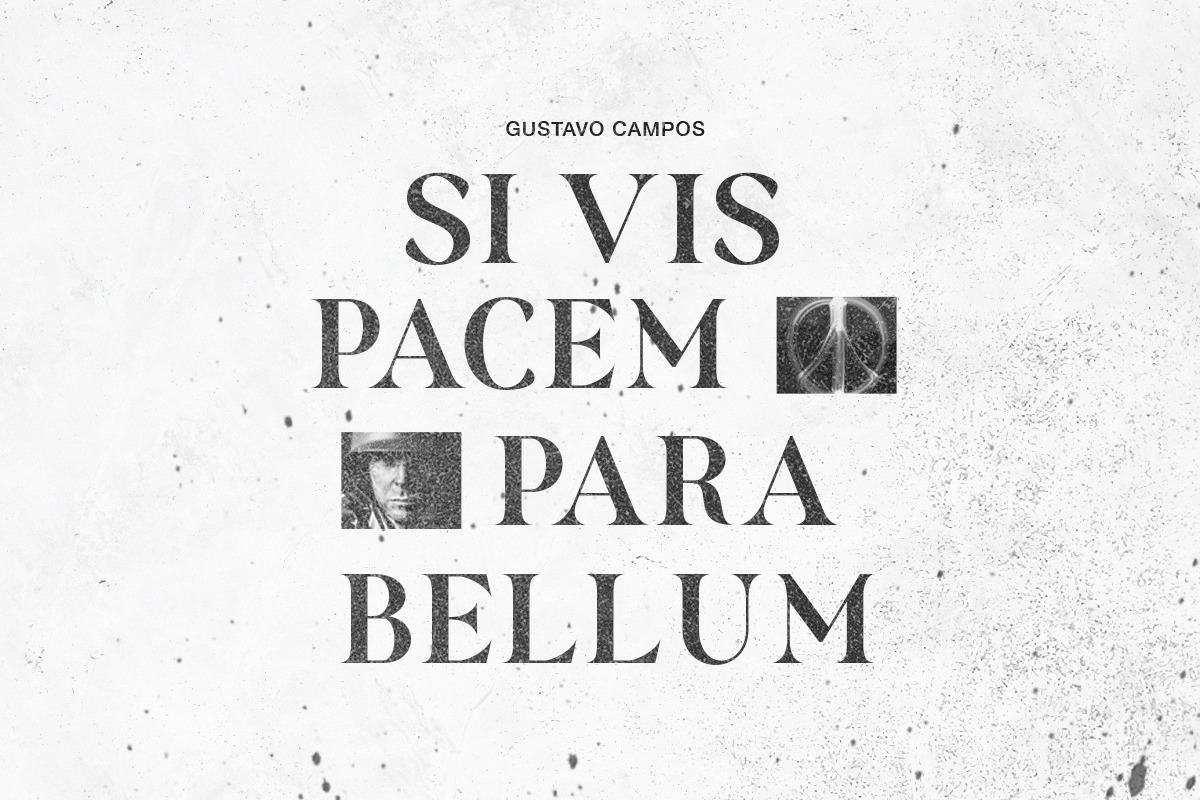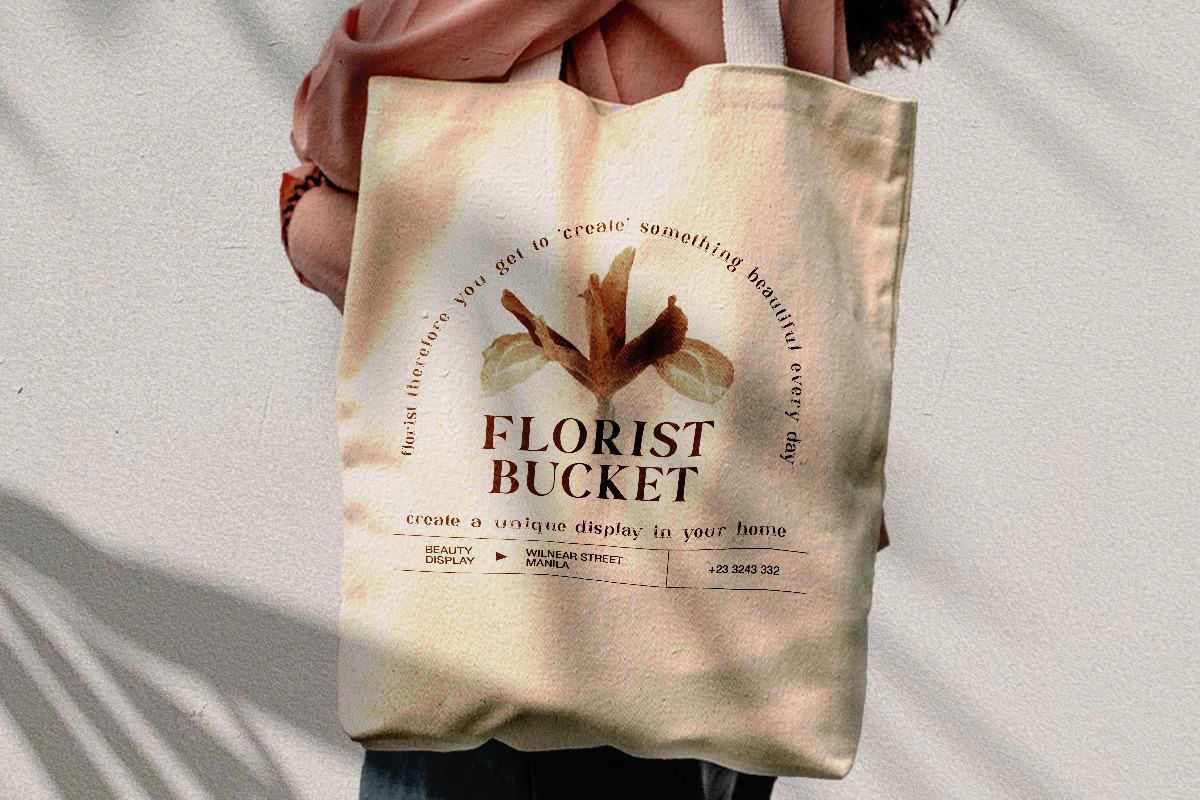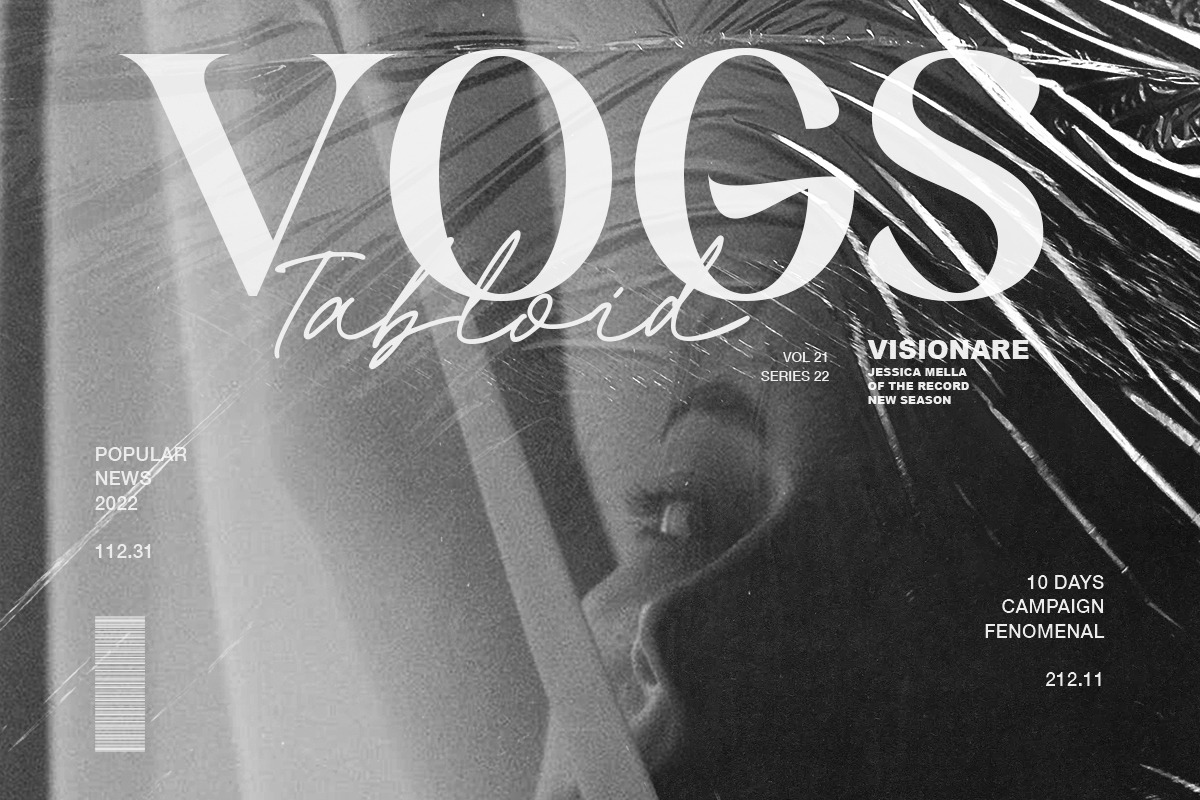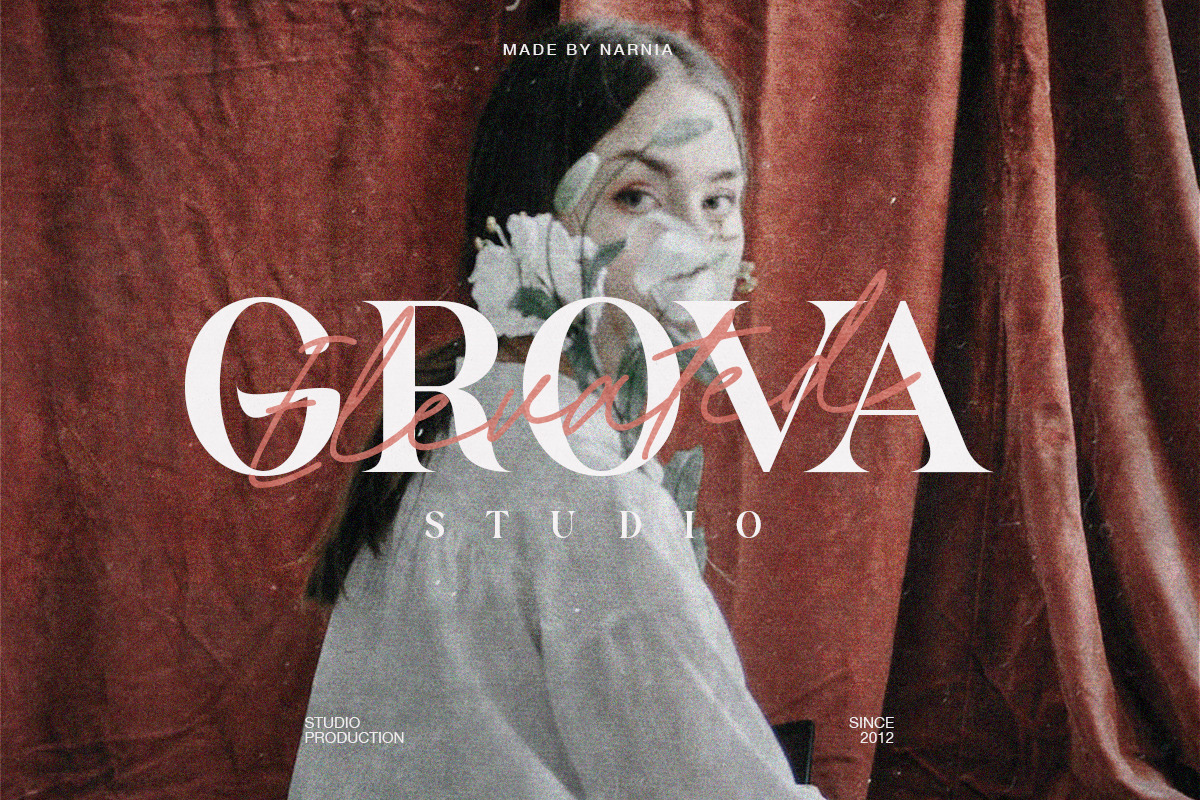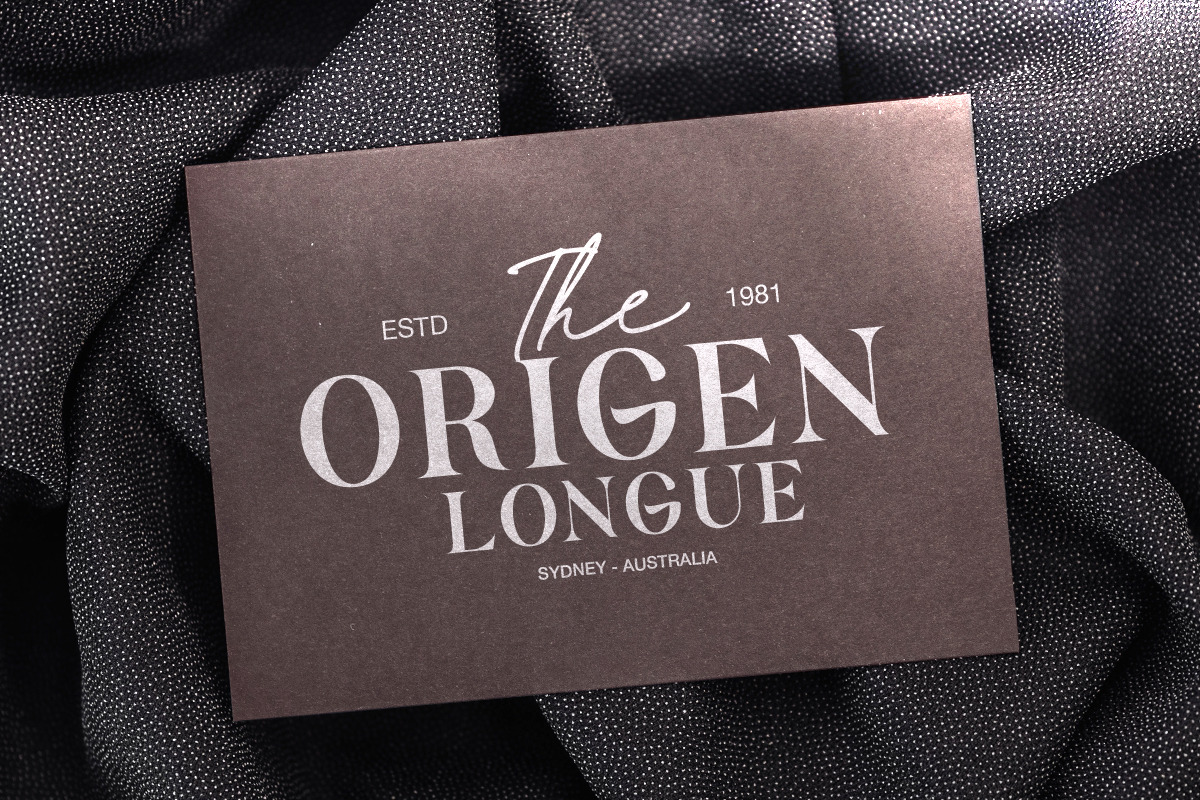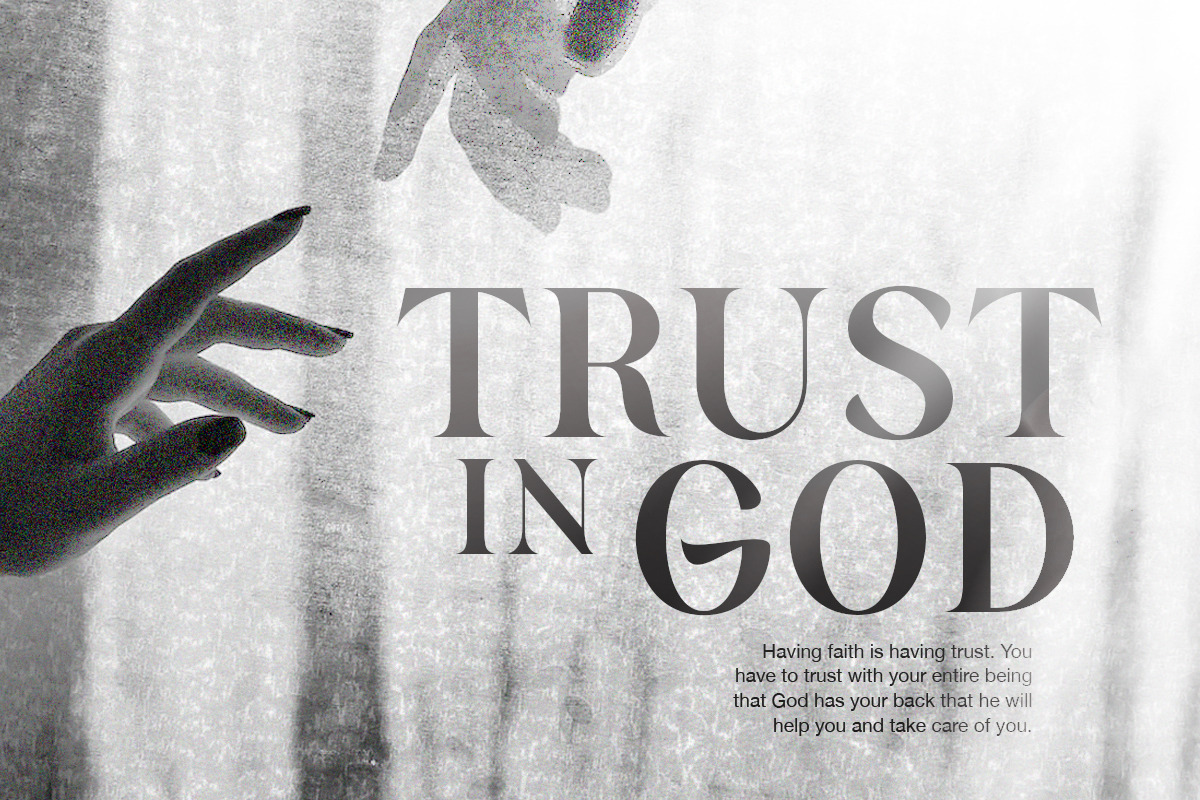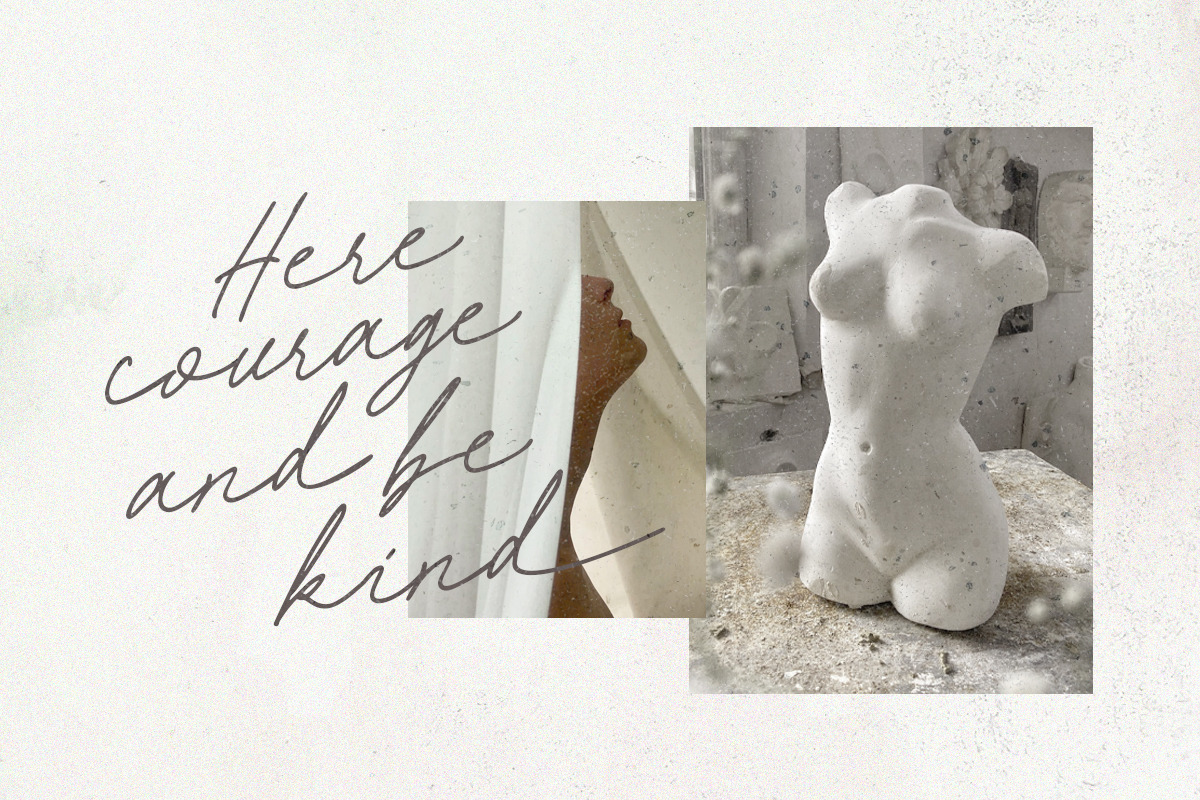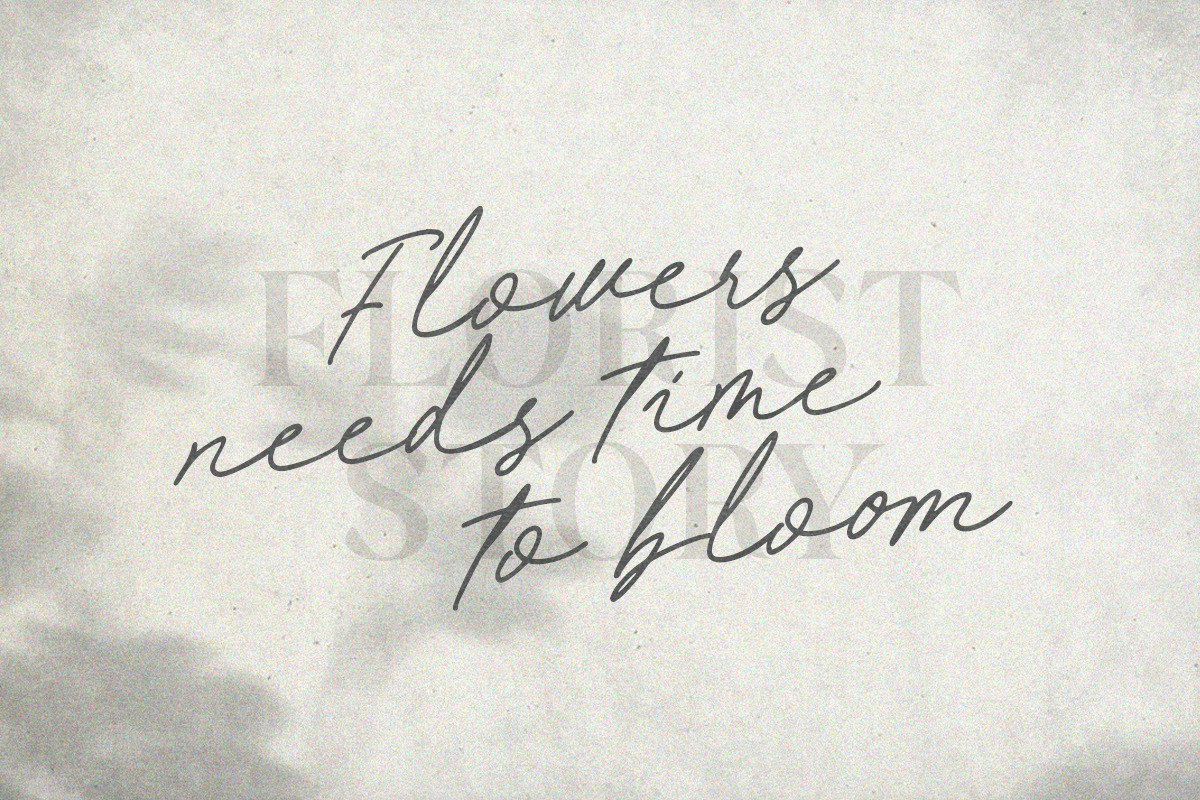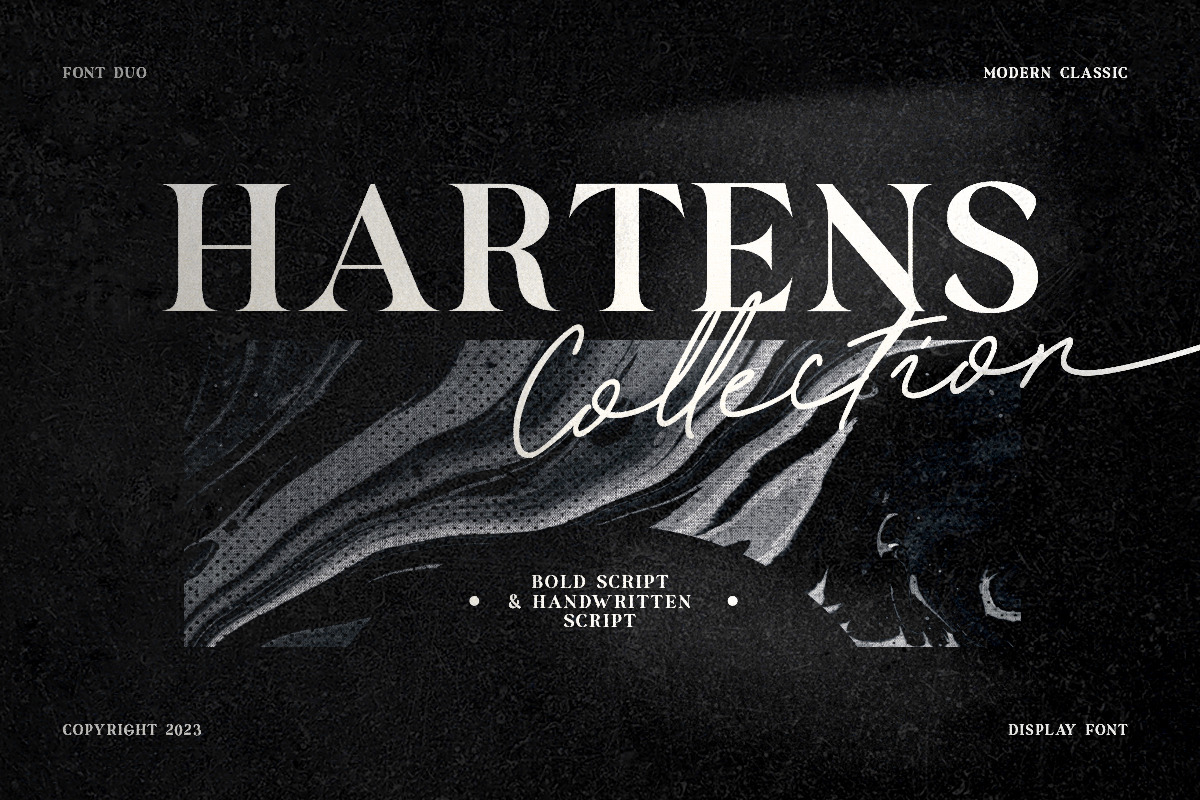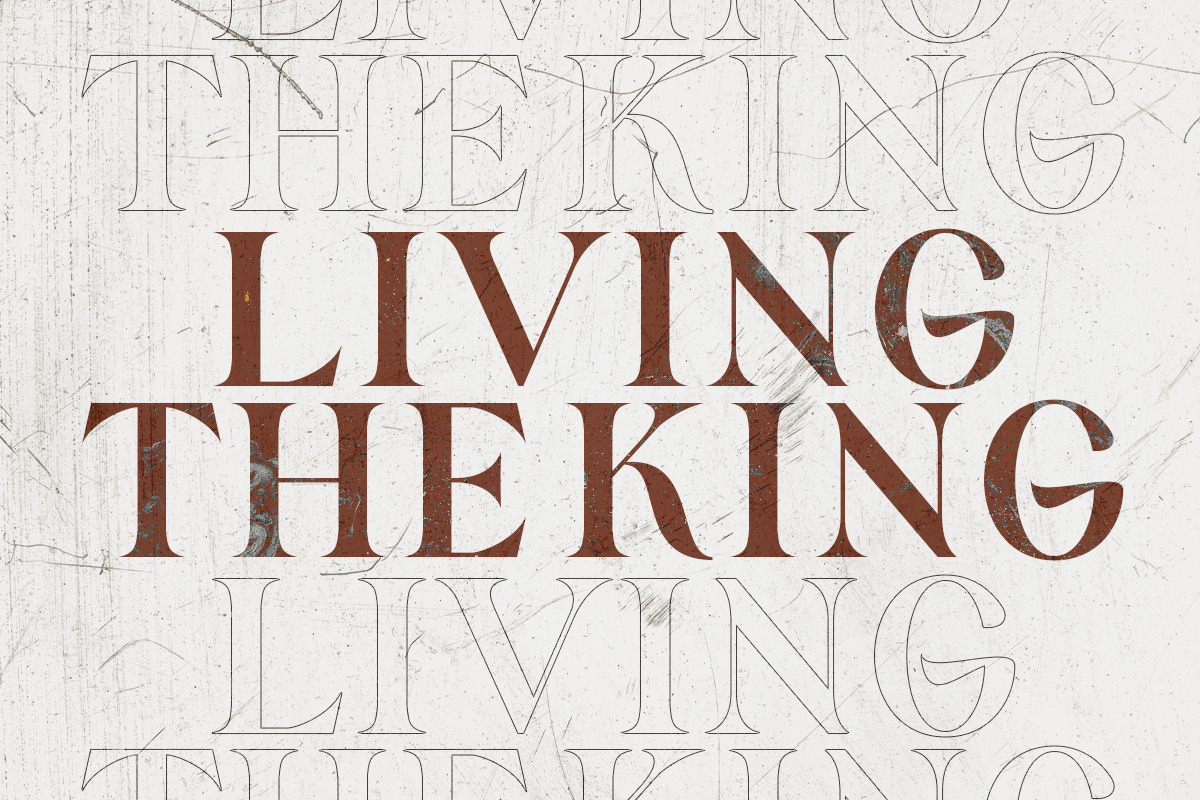
Hartens - Serif Script Font Duo
Hartens is a font duo that contains bold serif and handwritten script. You can use this fonts for any purpose, such as branding, logo, and suitable for wedding invitations. You don't have to worry to mix and match your font collections, this combination is ready to use. Hartens also support multilingual!